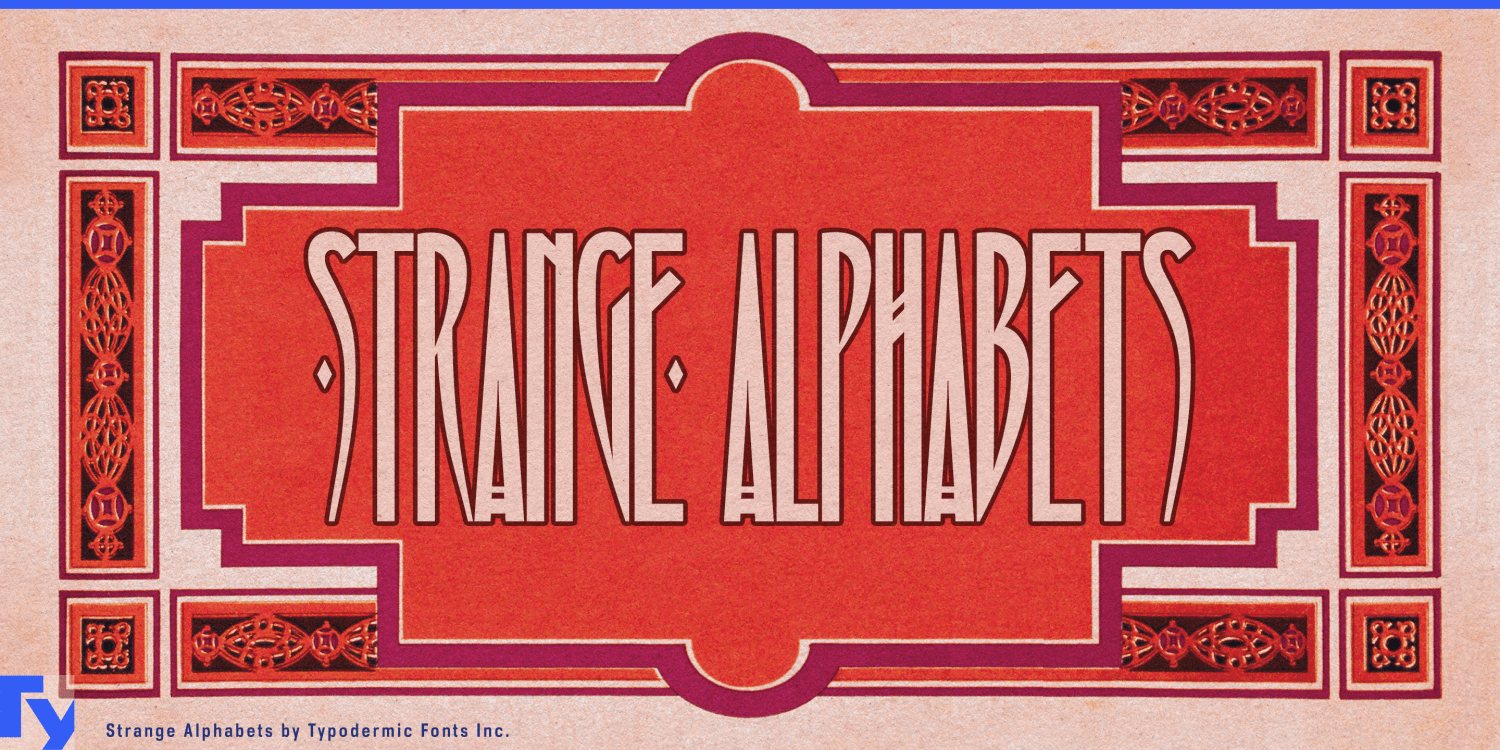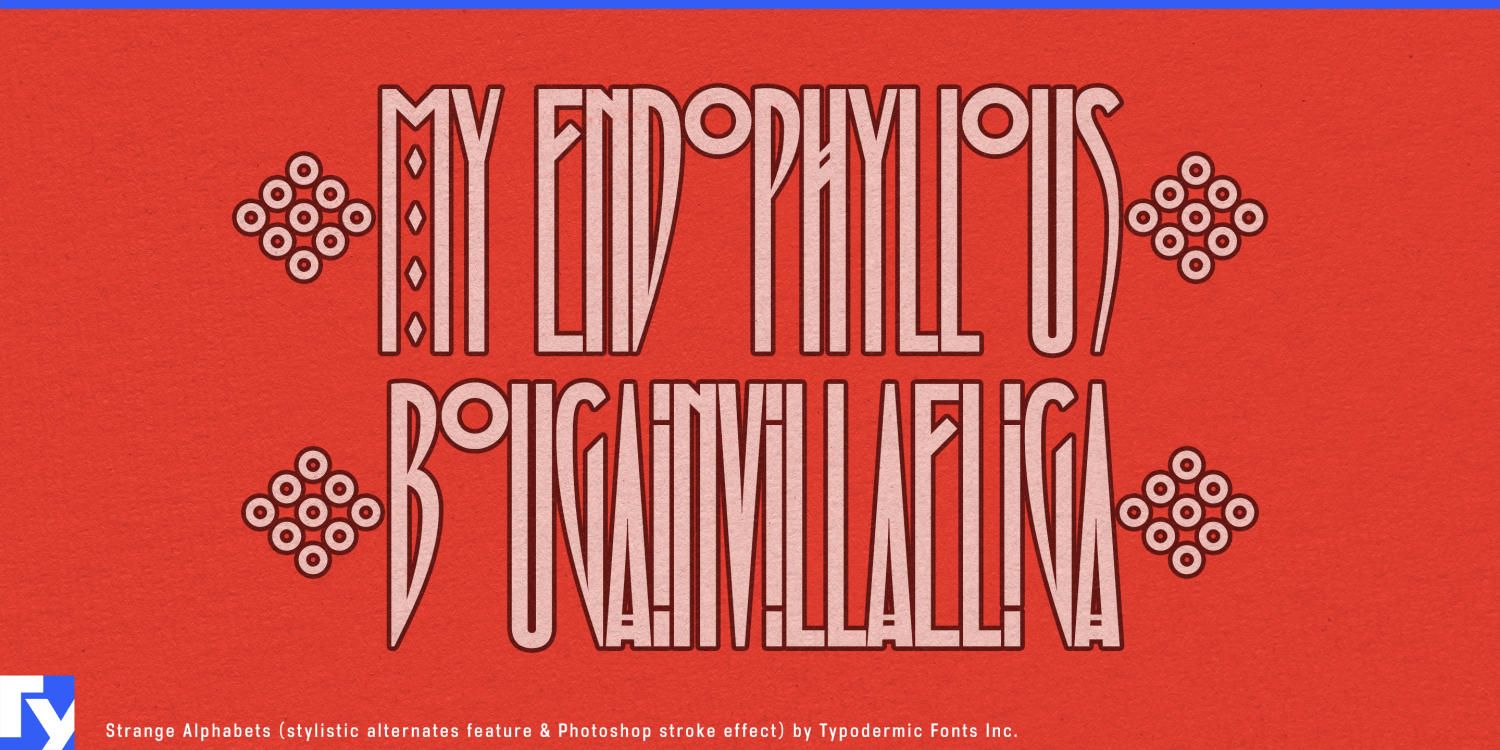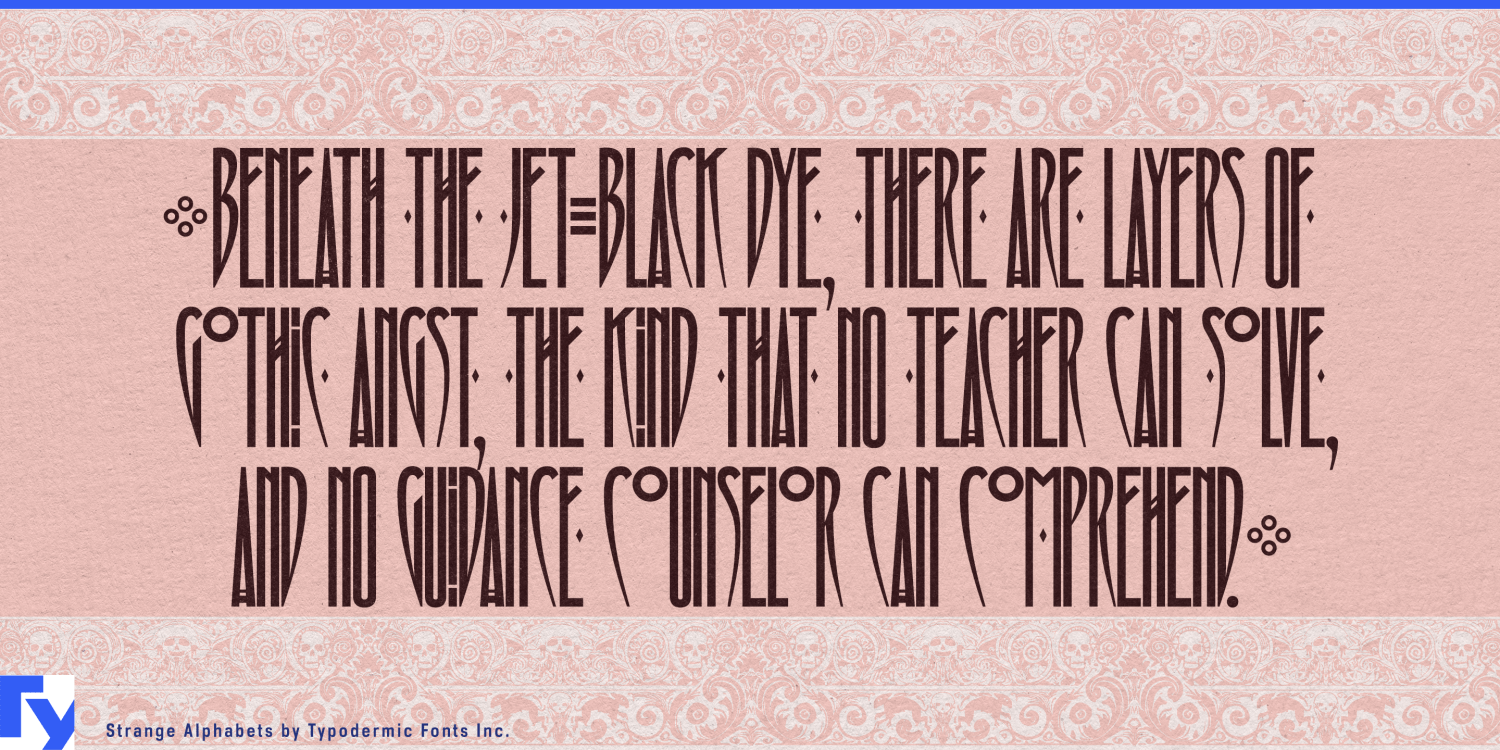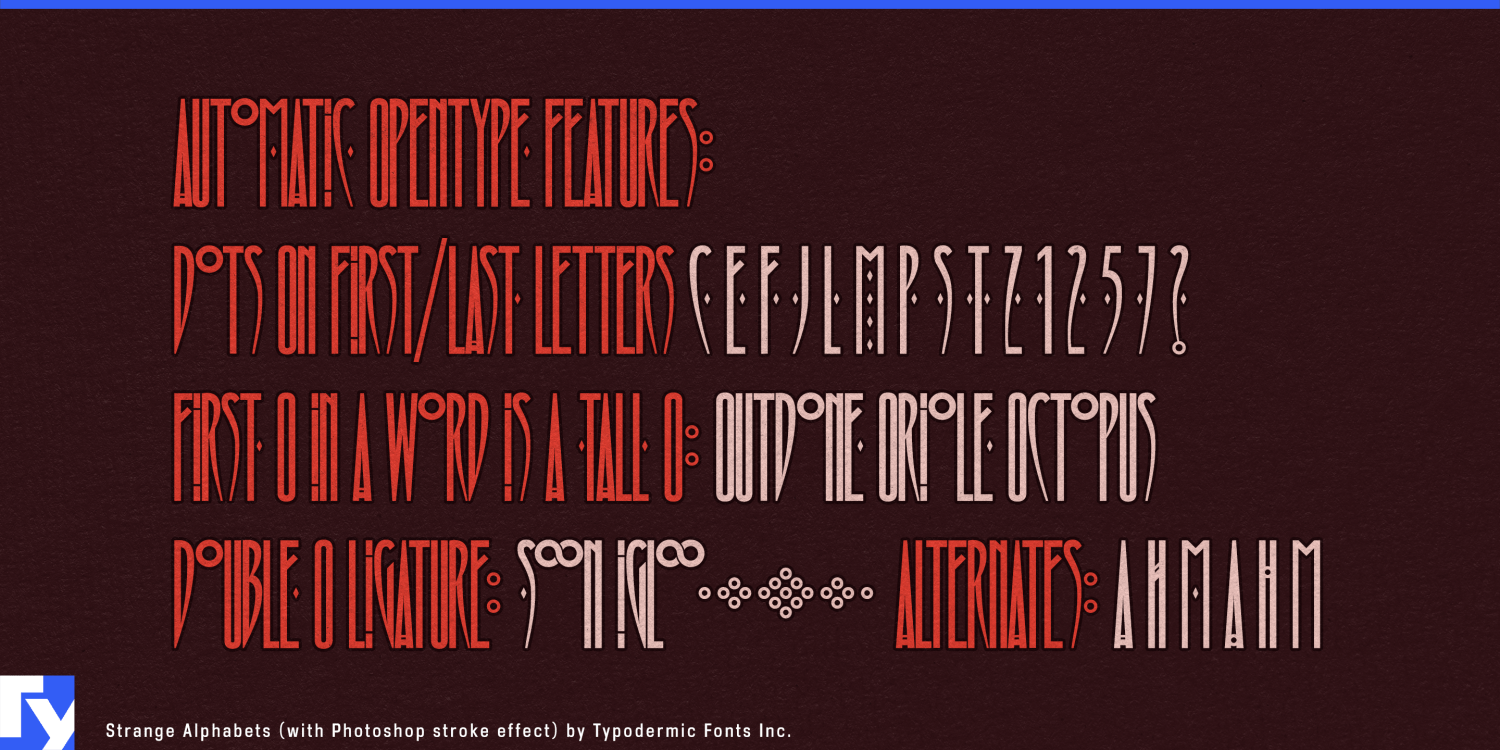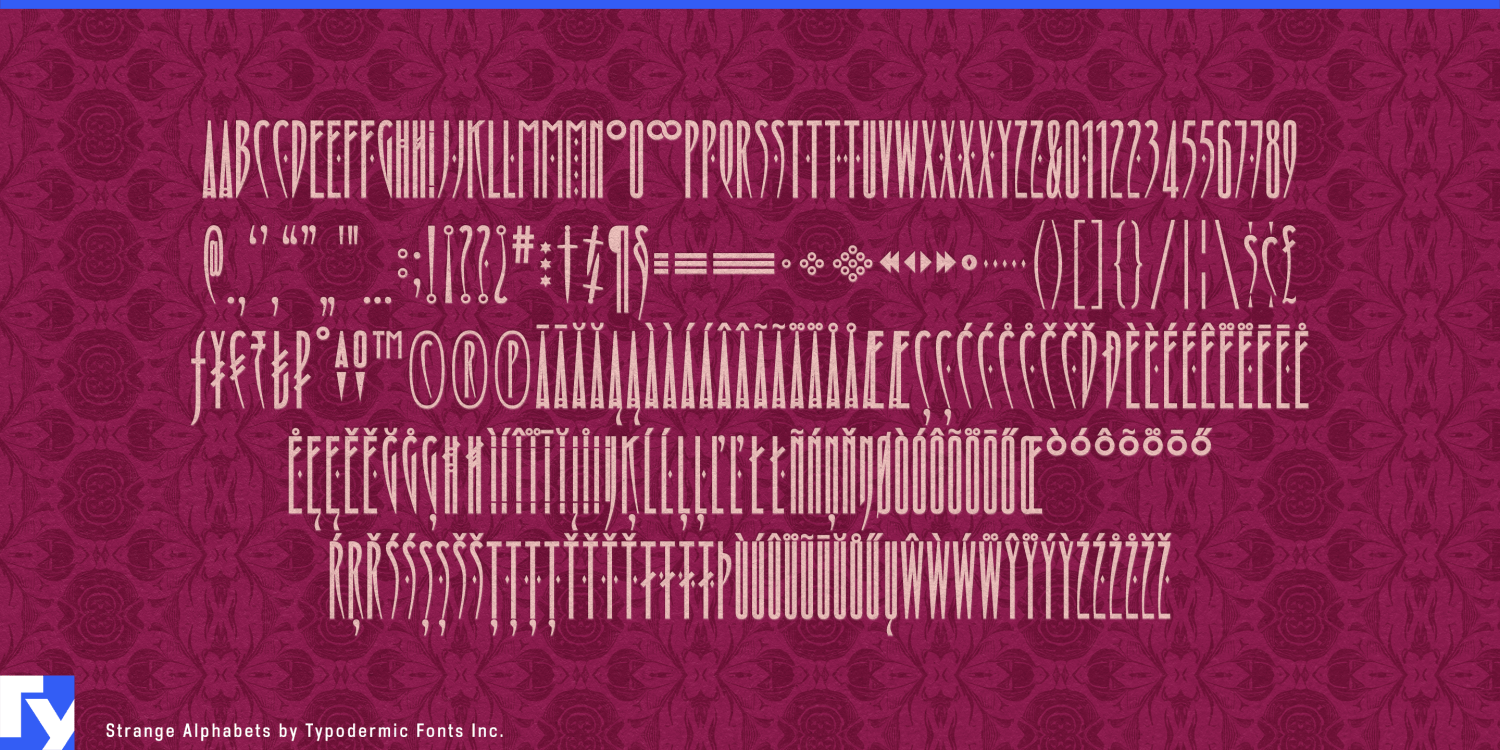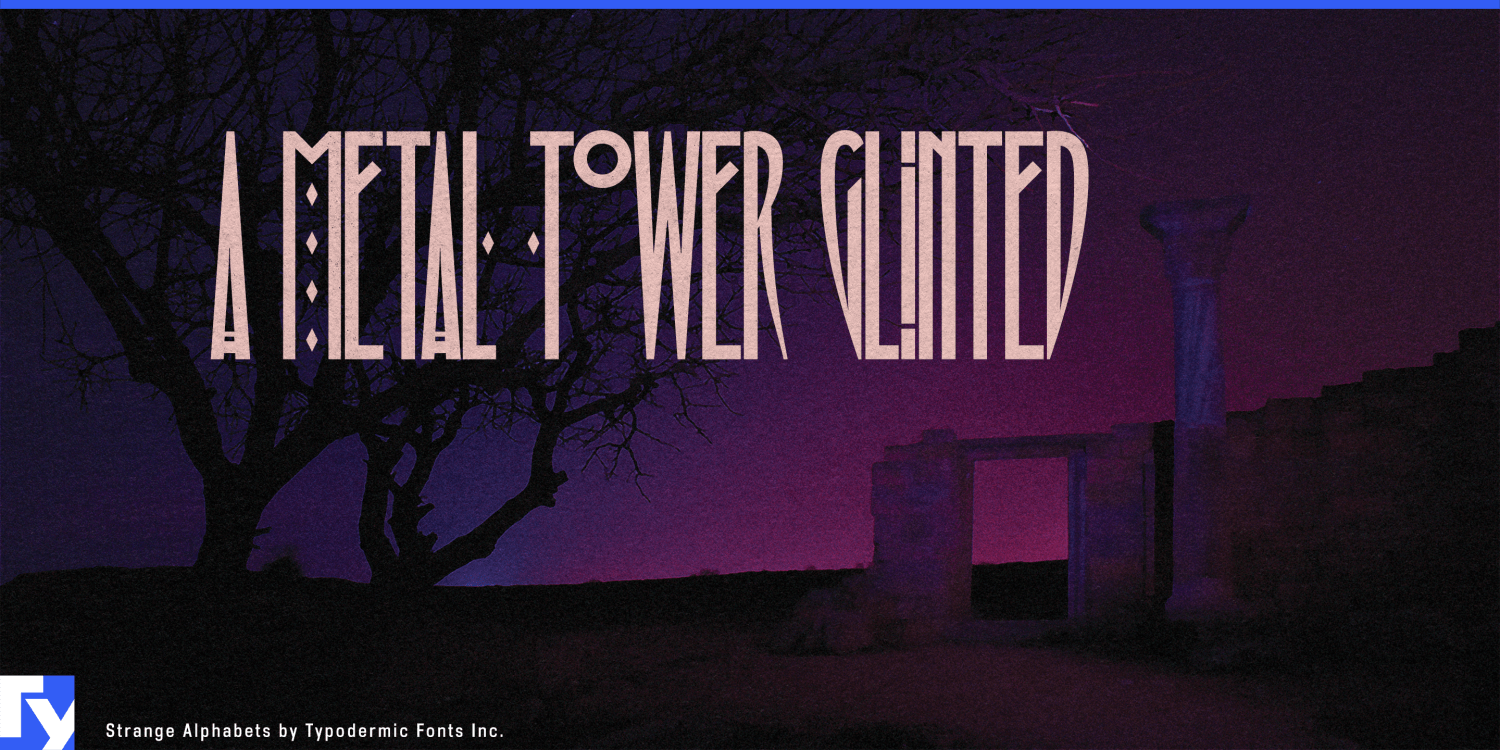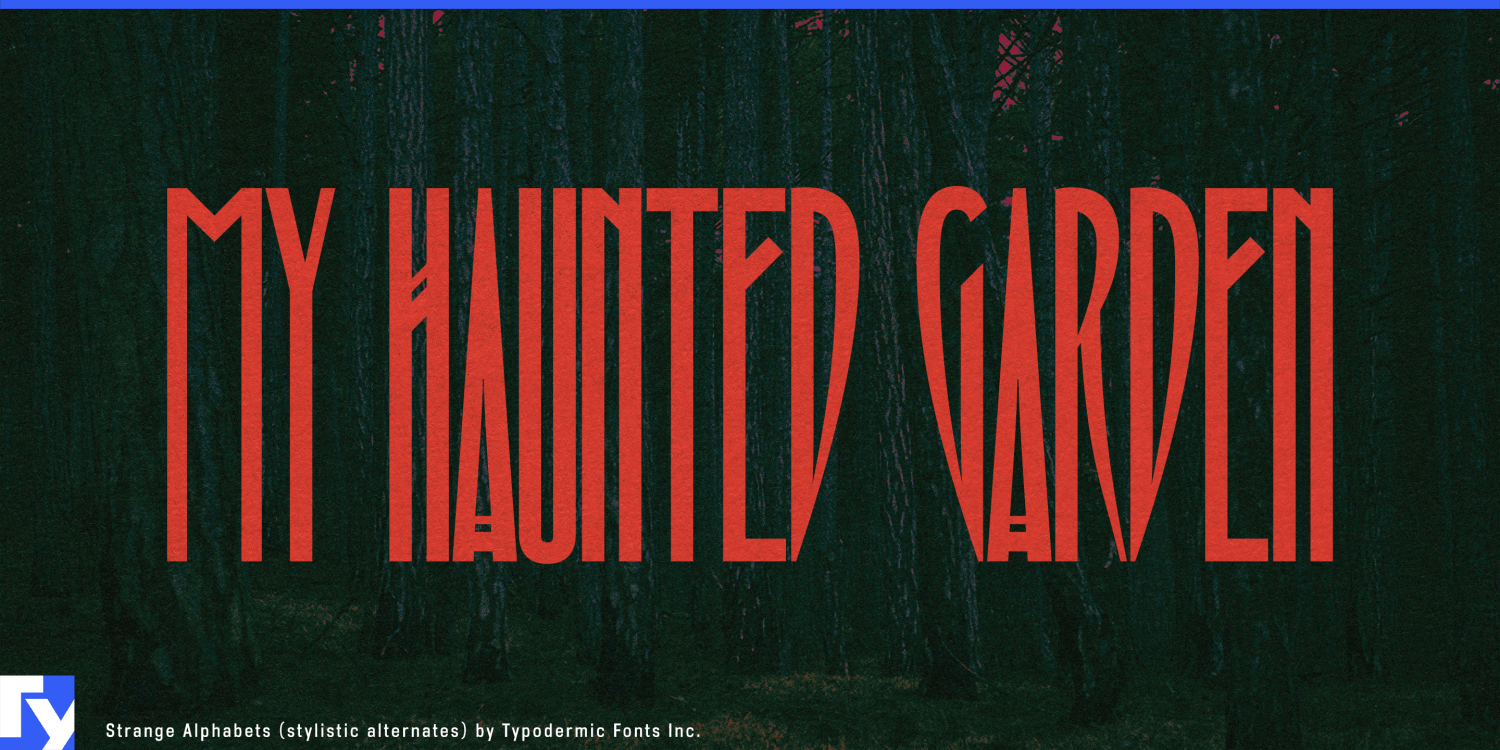
Strange Alphabets
Strange Alphabets turns extreme narrowness into a display tool. Its tall, high-contrast capitals, diamond details, eccentric alternates, and sharply compressed proportions let long names occupy serious visual space without spreading across the page. A title can loom vertically while leaving room for photography, illustration, or dense supporting information around it.
That makes the face especially useful for post-punk, gothic rock, darkwave, and related music culture. Album covers, vinyl reissues, tour identities, festival campaigns, artist websites, streaming artwork, and merchandise often need typography that feels severe, elegant, and unmistakably alternative. Strange Alphabets reaches that territory through proportion and ornament rather than blackletter or distressed-punk conventions. Long band names and event titles can be set enormous while remaining economical with horizontal space.
Fashion, fragrance, and cosmetics offer another natural setting. Tall perfume cartons, narrow bottle labels, candle packaging, jewellery boxes, clothing hangtags, and campaign graphics can make direct use of its vertical proportions. A short perfume name can become almost architectural; a longer fashion label can stretch upward instead of turning into a wide block. The diamond forms and unusual variants provide enough decorative material to make restrained layouts distinctive without surrounding the type with elaborate ornament.
Publishing can use the same qualities for gothic fiction, decadent literature, supernatural novels, literary horror, historical mysteries, and deluxe editions. Cover titles, series names, slipcases, chapter openers, and especially book spines benefit from a typeface that can make a long phrase tall rather than wide. Its connection to inventive Edwardian book-cover lettering gives it a natural relationship with historical material while leaving room for contemporary treatment.
Strange Alphabets also suits theatre, dance, cabaret, fashion exhibitions, and other cultural projects where a title needs ceremony or cultivated darkness. Programme covers, posters, season identities, and event graphics can build strong vertical structures while a quieter companion face handles dates, venues, credits, and explanatory copy.
The design grew from two related sources: condensed lettering found on late nineteenth- and early twentieth-century book covers, and the narrow visual language associated with Siouxsie and the Banshees. Together they explain its combination of historical ornament and post-punk severity without limiting the typeface to either context.
Alternate letters, ligatures, diamond ornaments, and unusual punctuation can push short titles closer to custom lettering, while the basic alphabet already carries plenty of character. Strange Alphabets is for long names, dramatic verticality, and words that need to loom rather than sprawl.